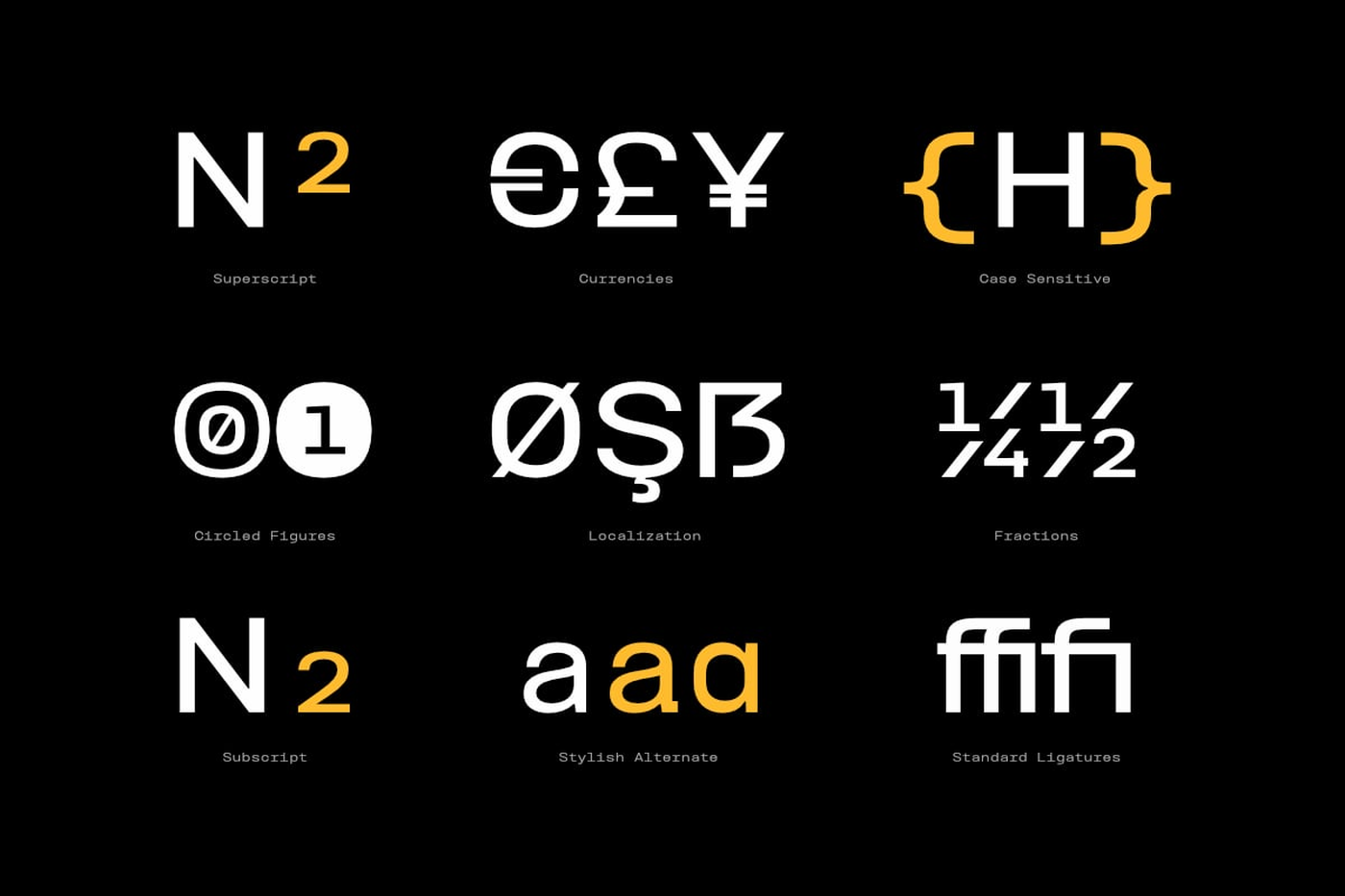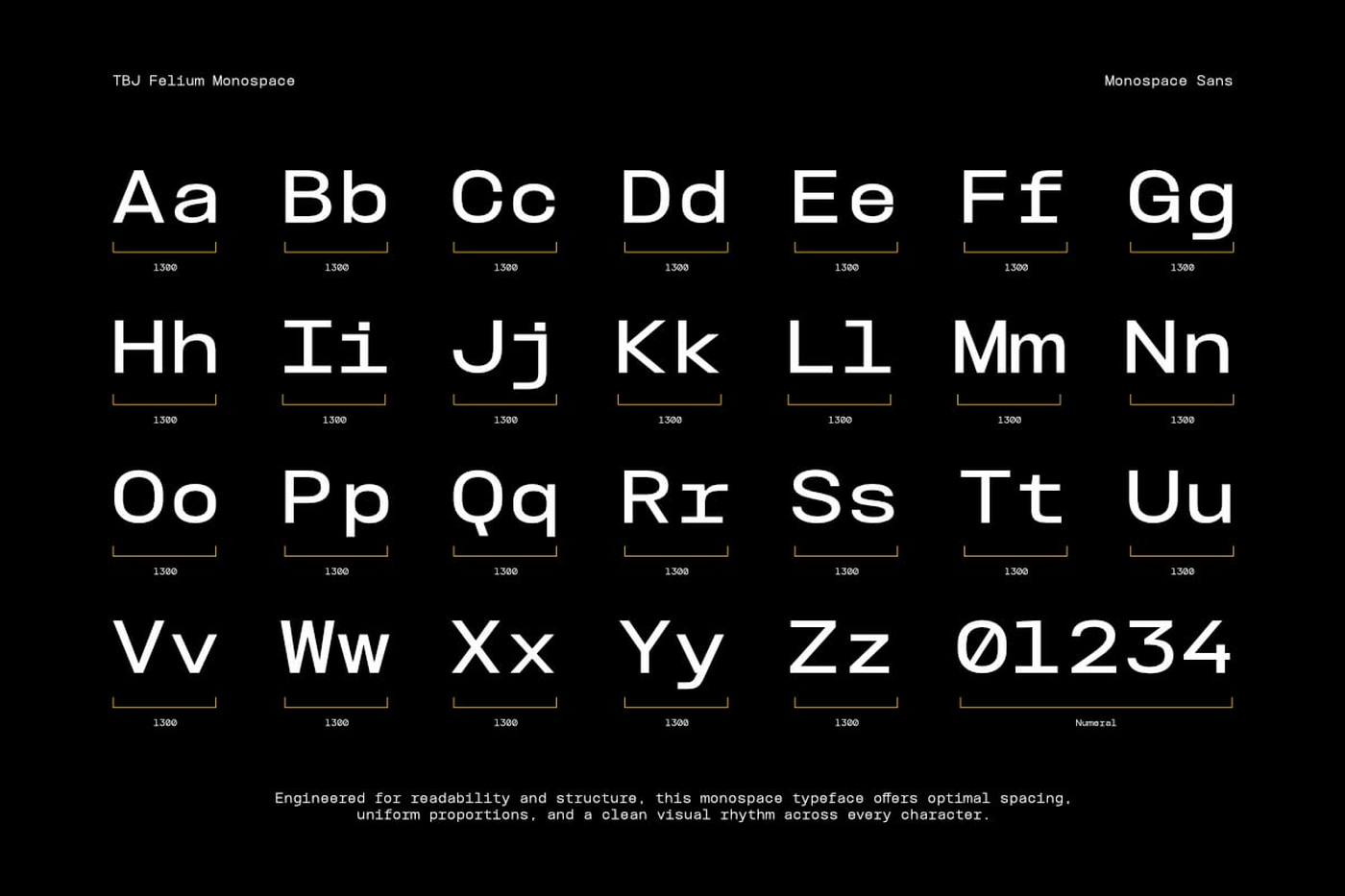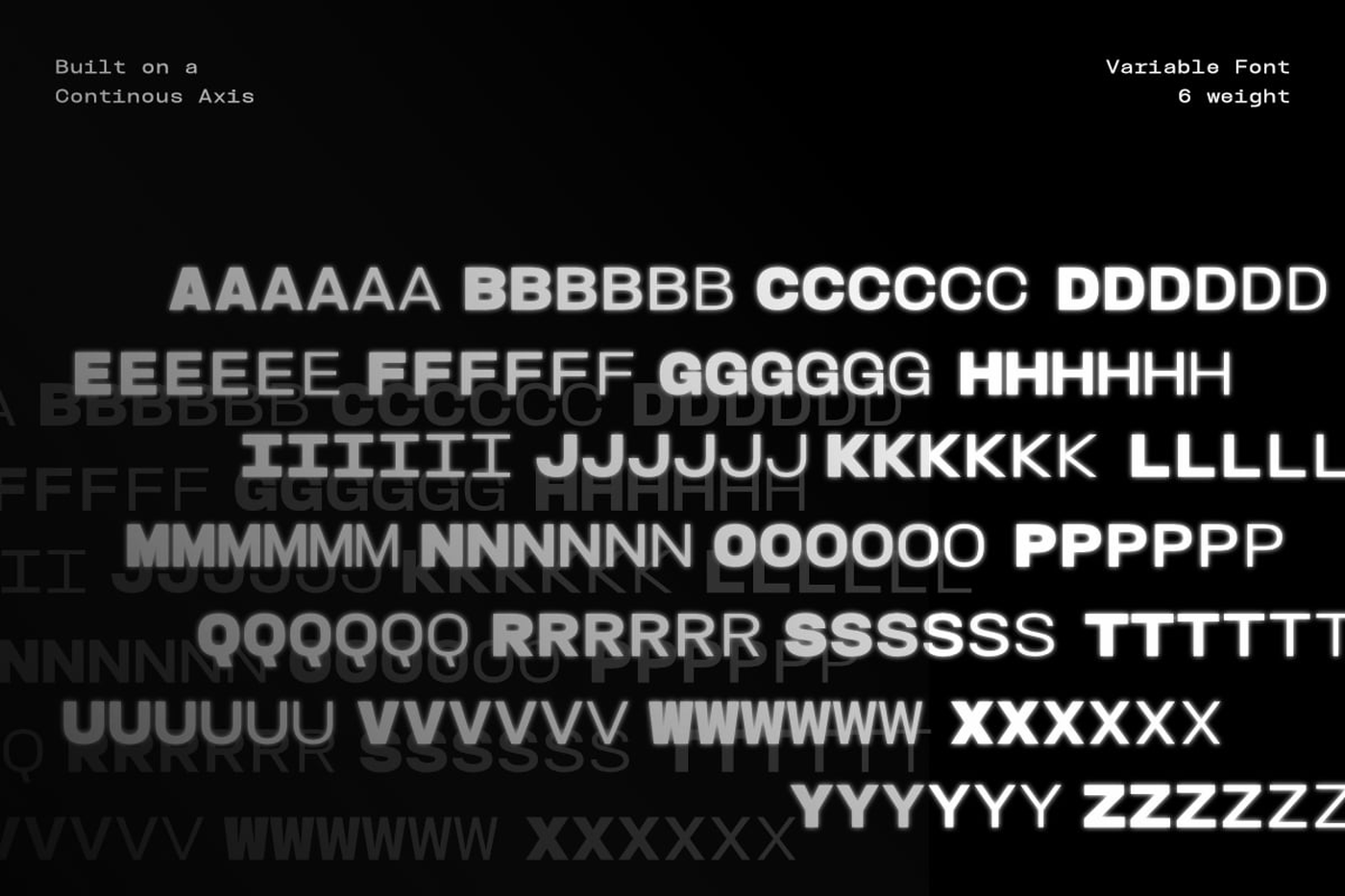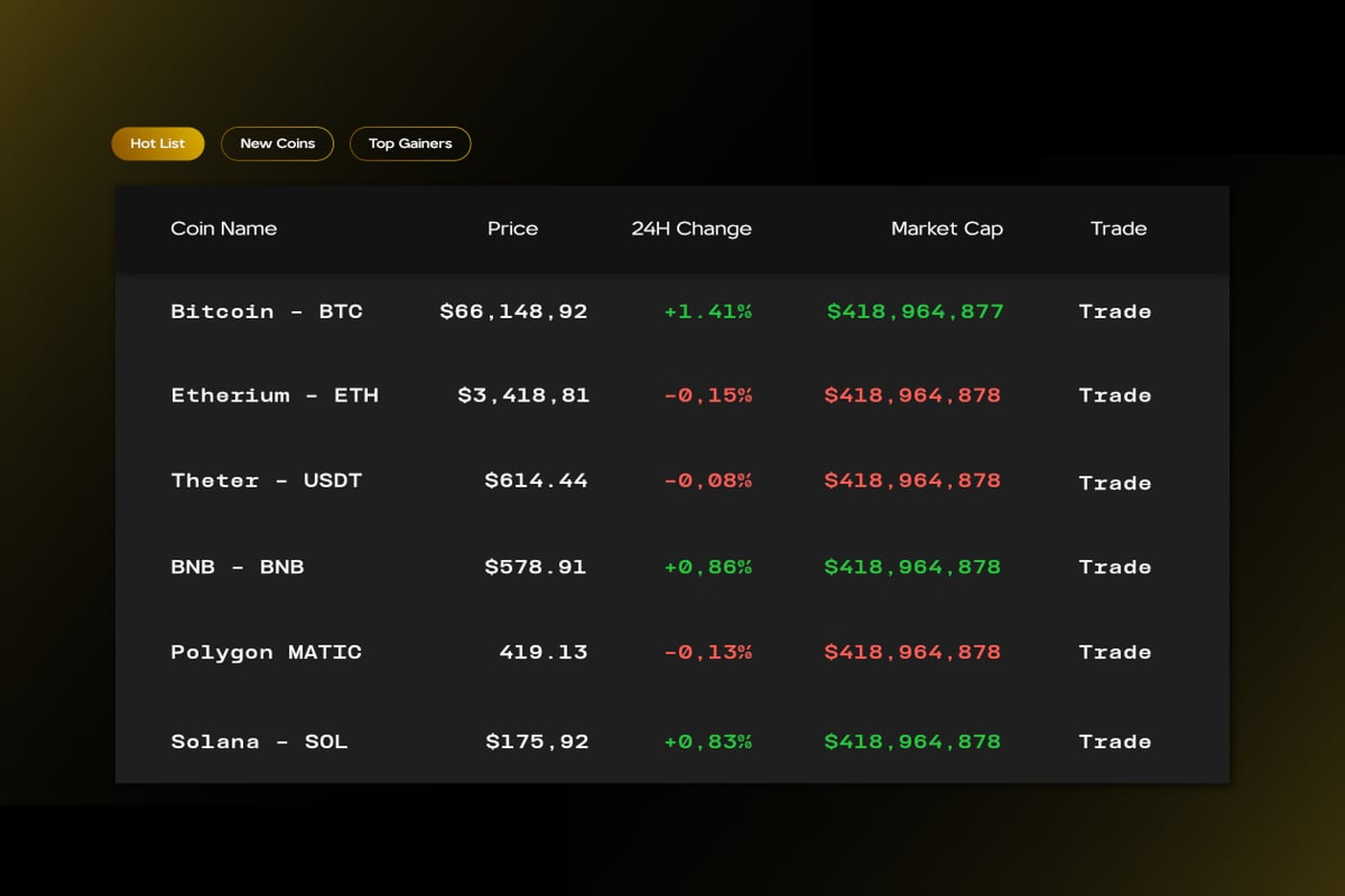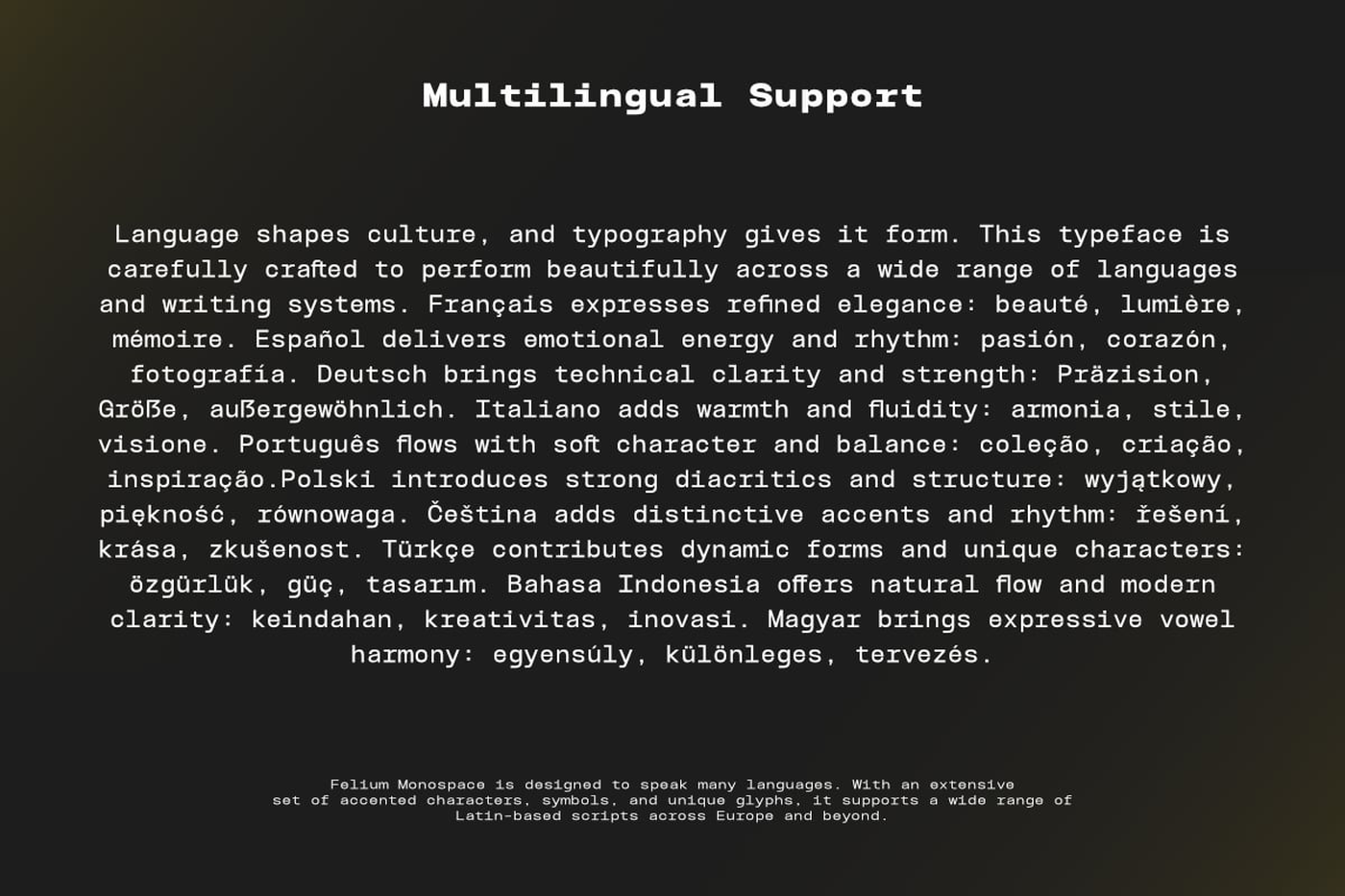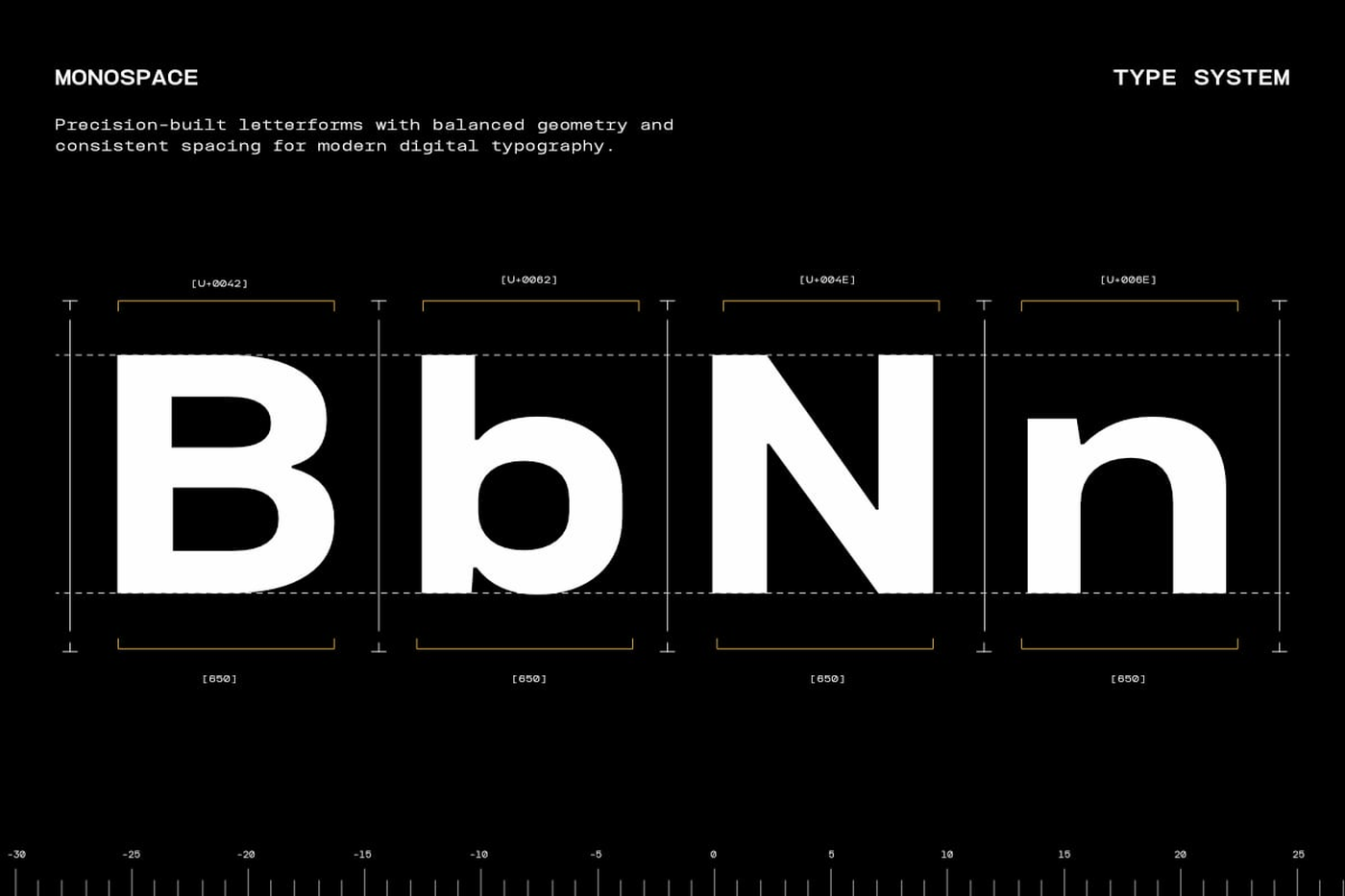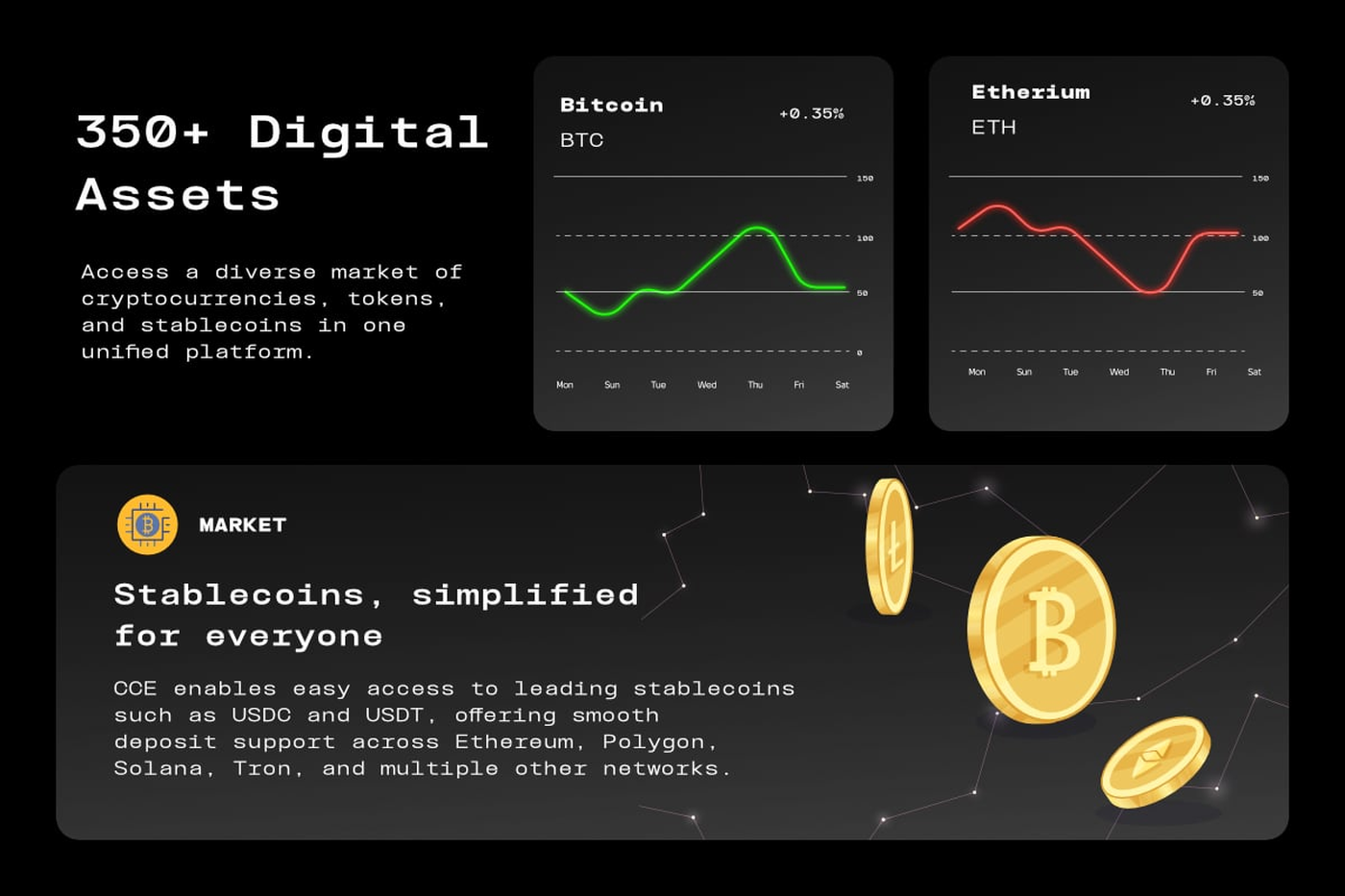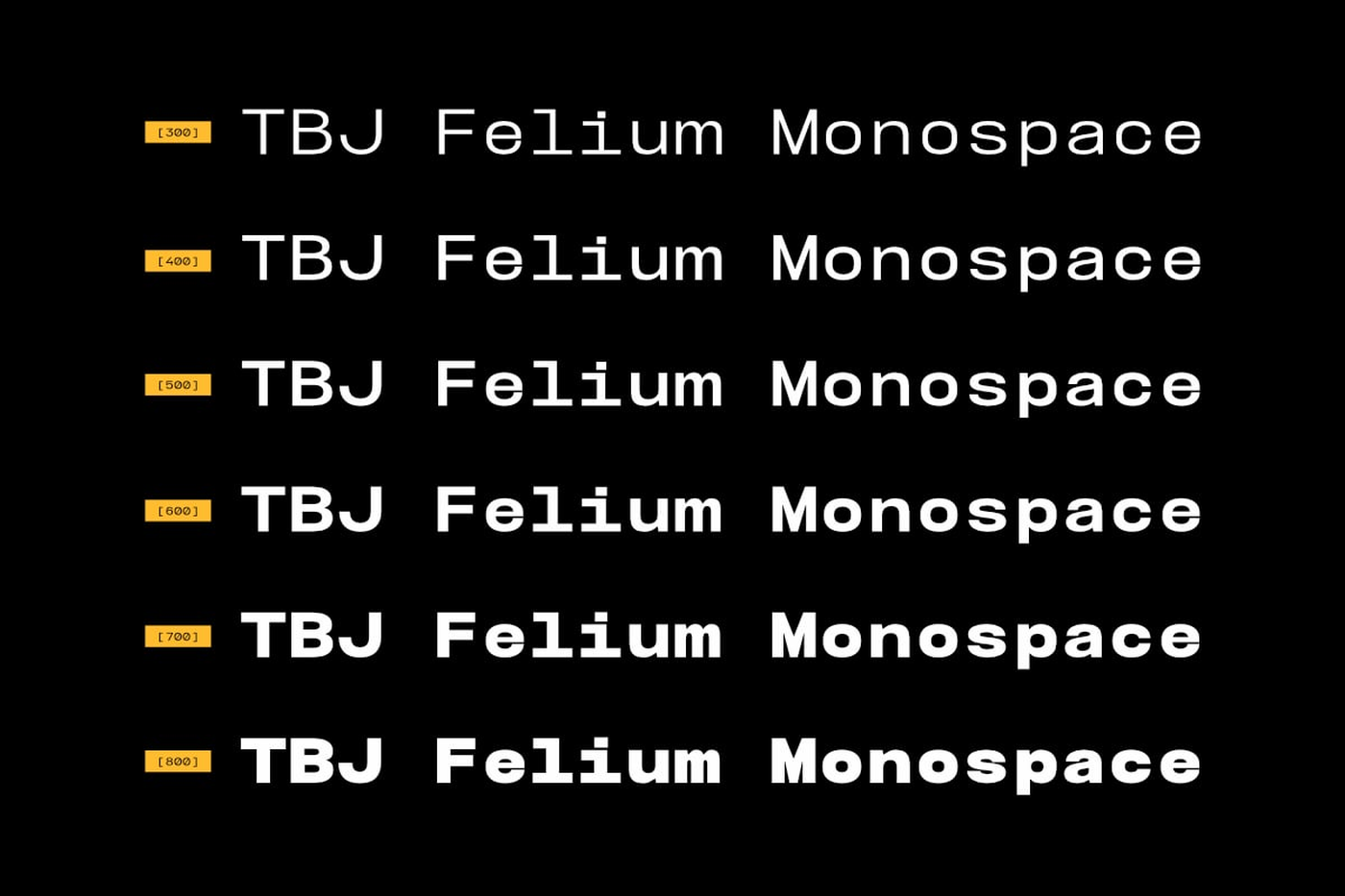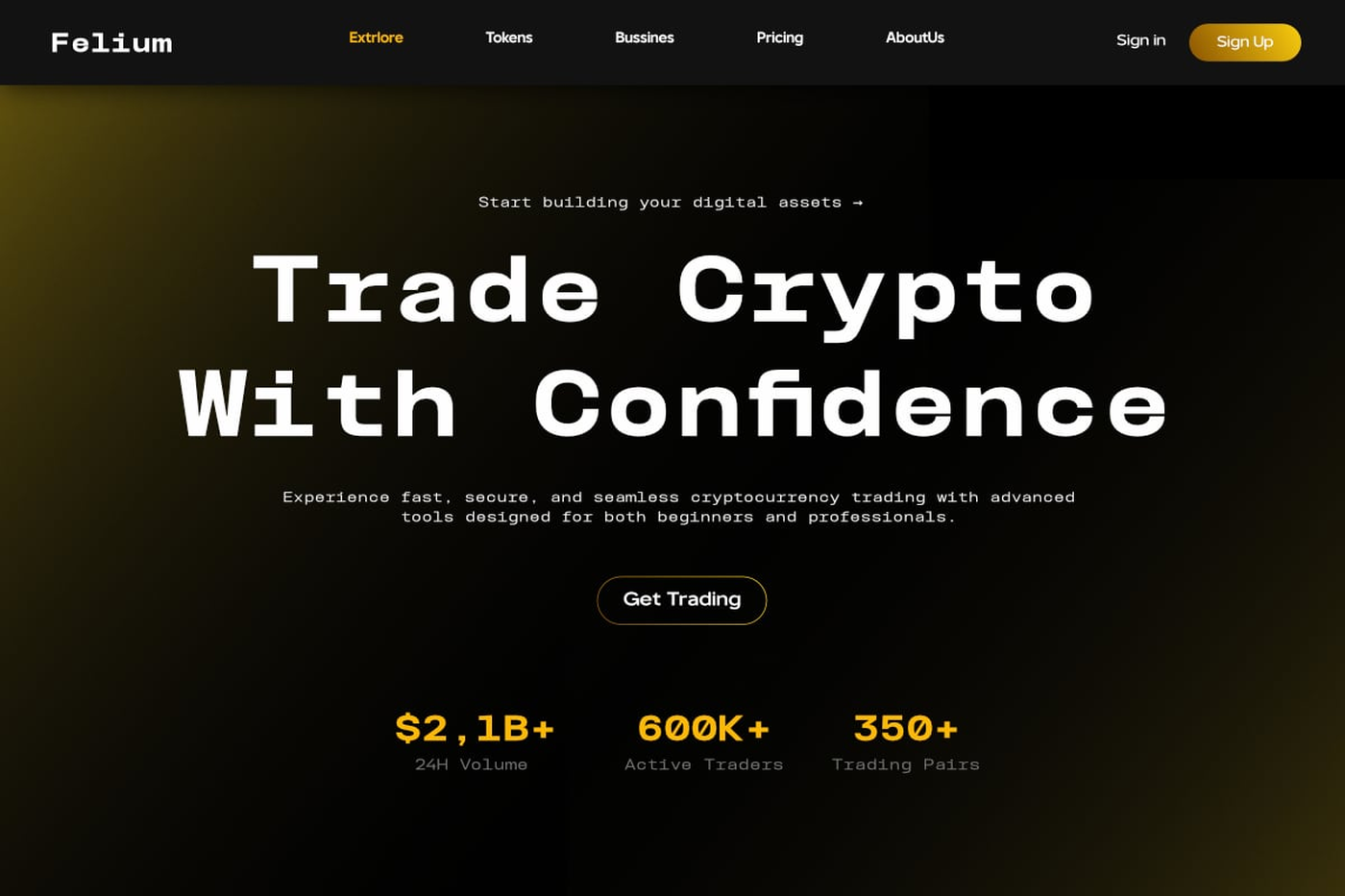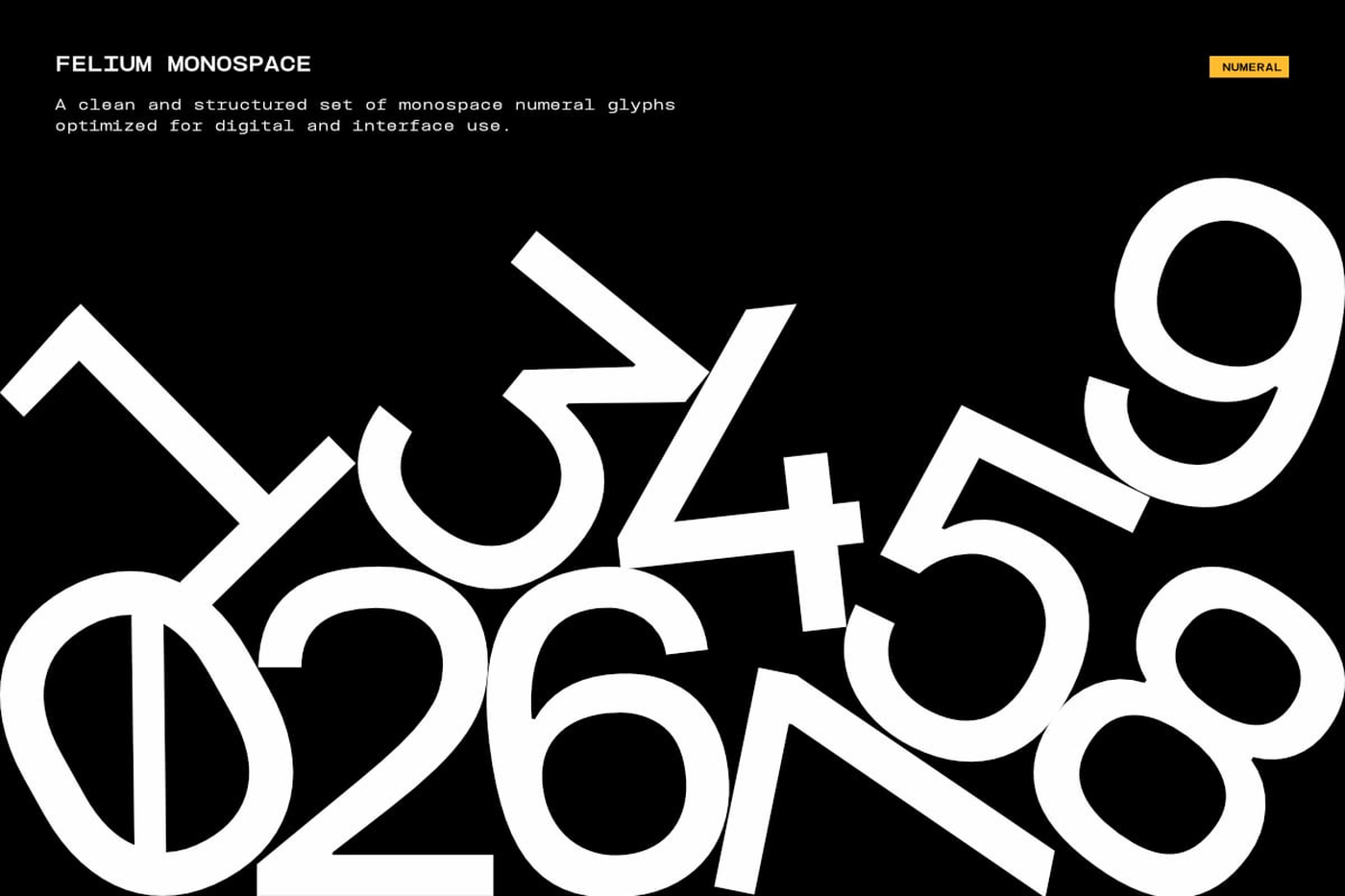
Felium Monospace - Sans Serif Font
Felium Monospace is a contemporary monospaced sans serif typeface, meticulously engineered with precision, clarity, and functional balance. Built on a continuous axis and available in six calibrated weights, Felium is designed to perform seamlessly in modern digital environments while maintaining a clean, rational aesthetic. Consistent character width across the entire glyph set ensures perfect alignment and exceptional readability, making Felium Monospace ideal for coding, UI systems, dashboards, fintech platforms, technical documentation, and data-driven layouts. Its structured geometry and controlled proportions create a stable visual rhythm, supporting dense information without sacrificing clarity.